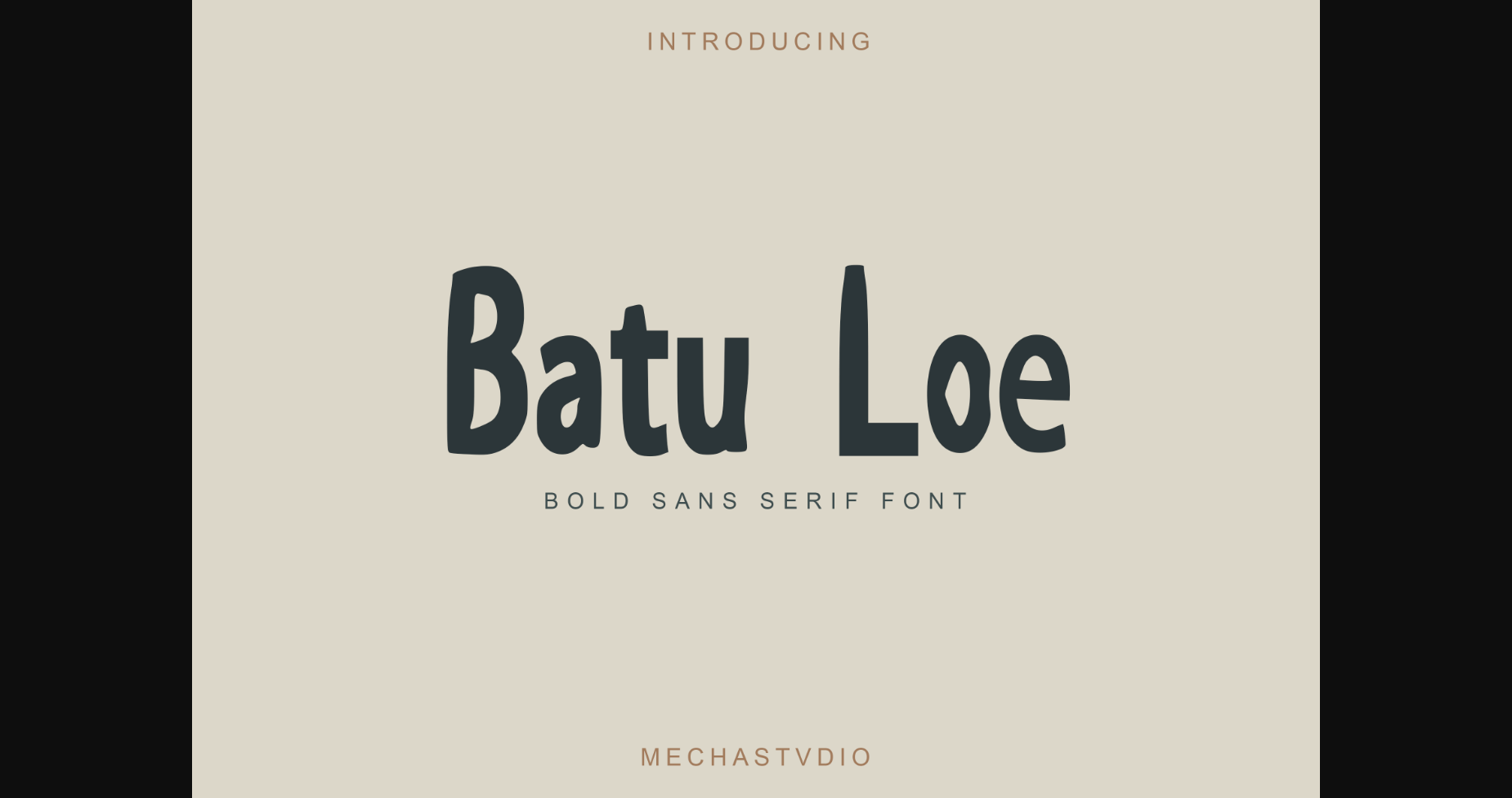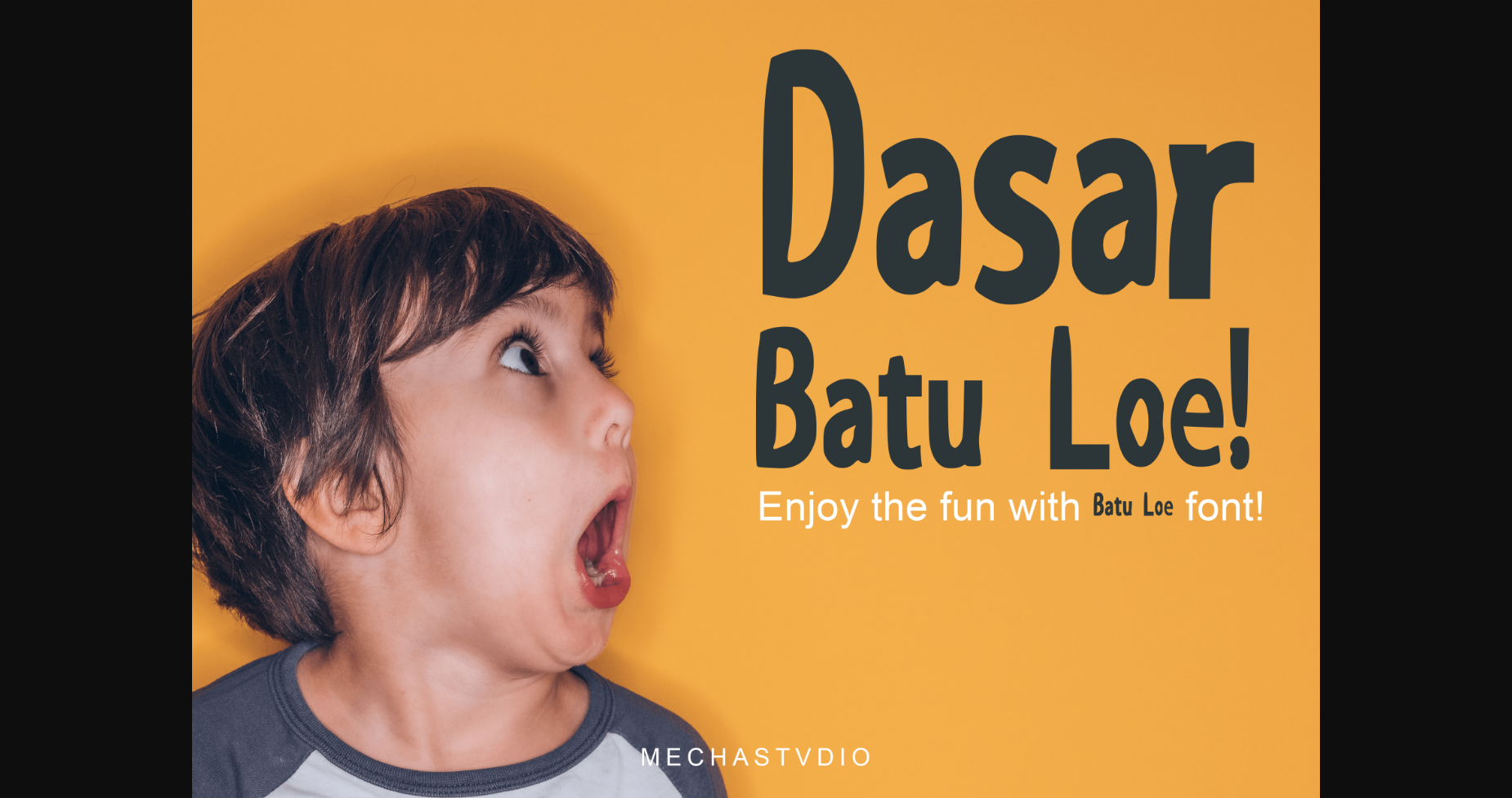
About Batu Loe Font
Batu Loe is a simple, bold, and solid custom display sans serif font. Its unique style is perfect for all your projects as it has the potential to transform them into a true standout.